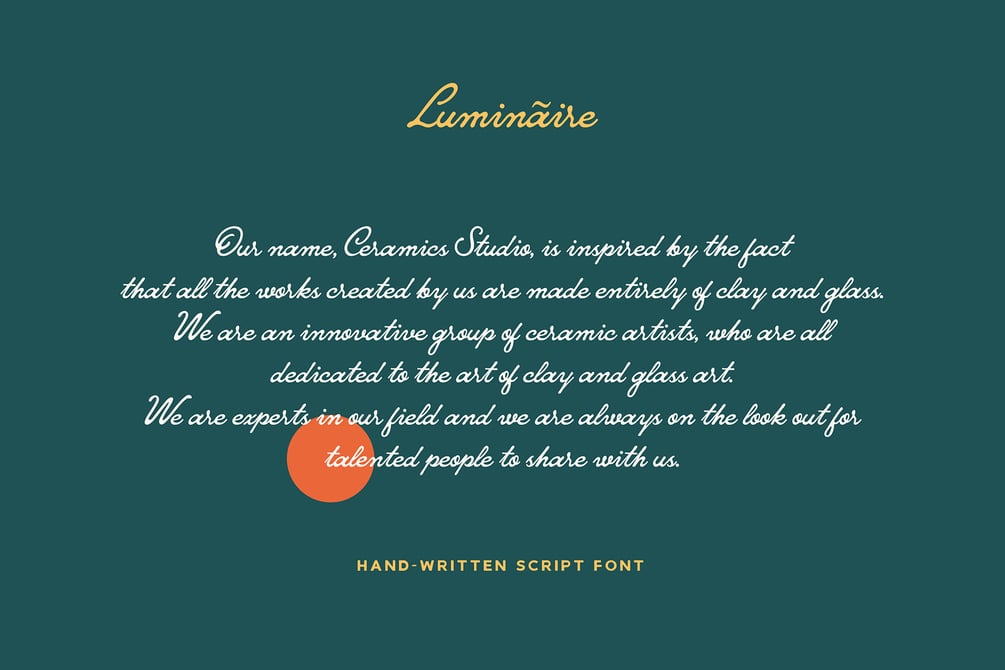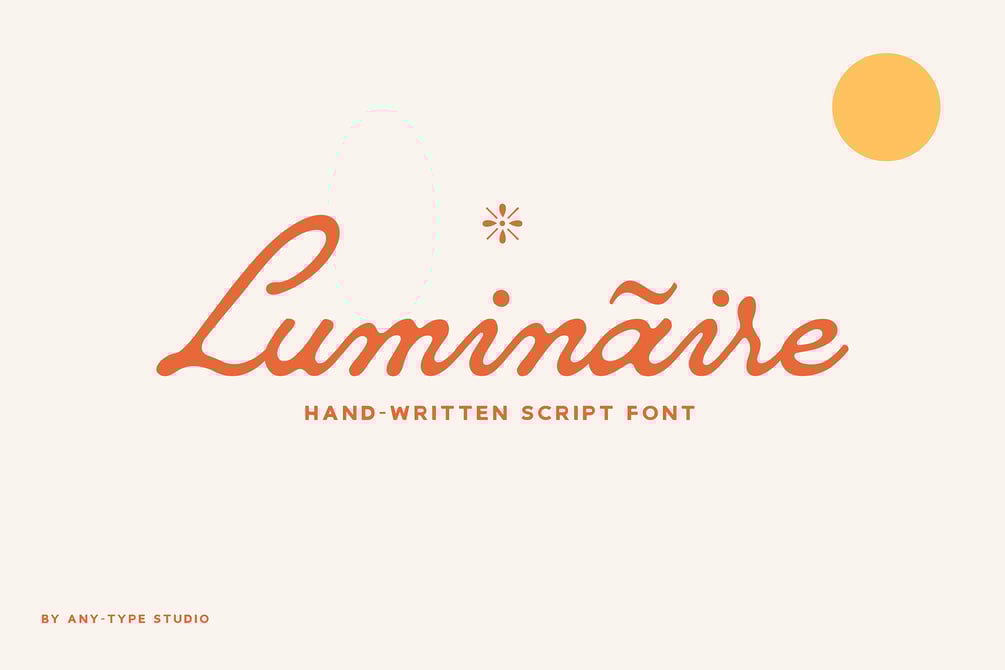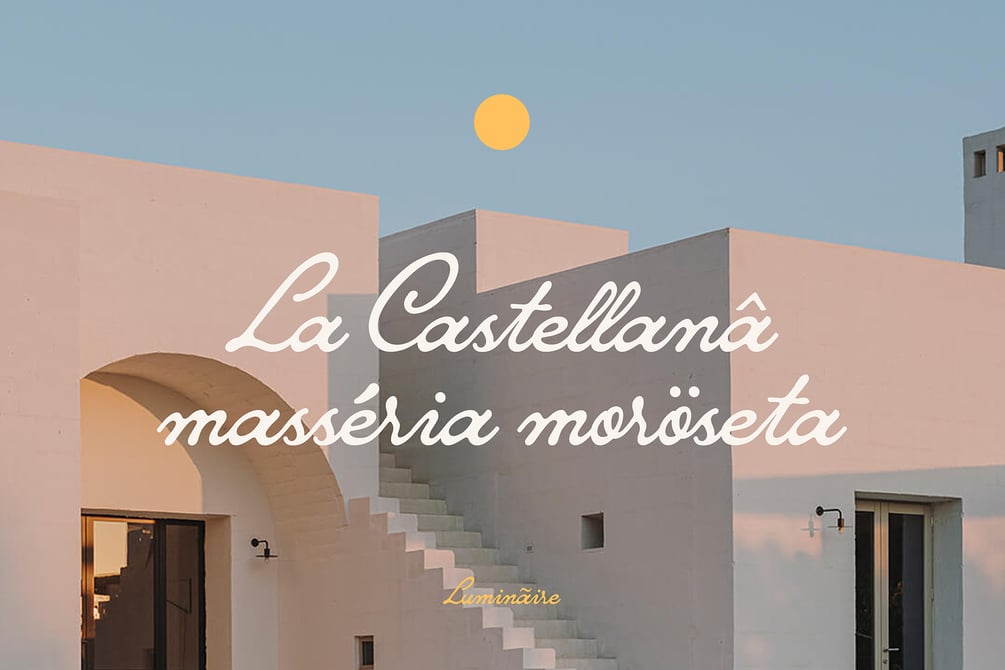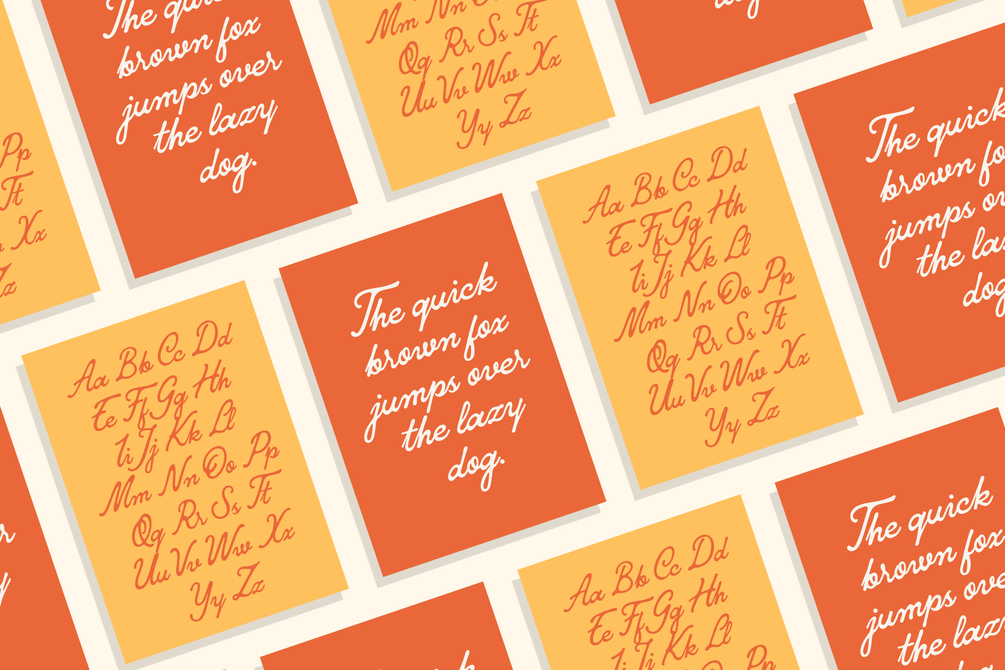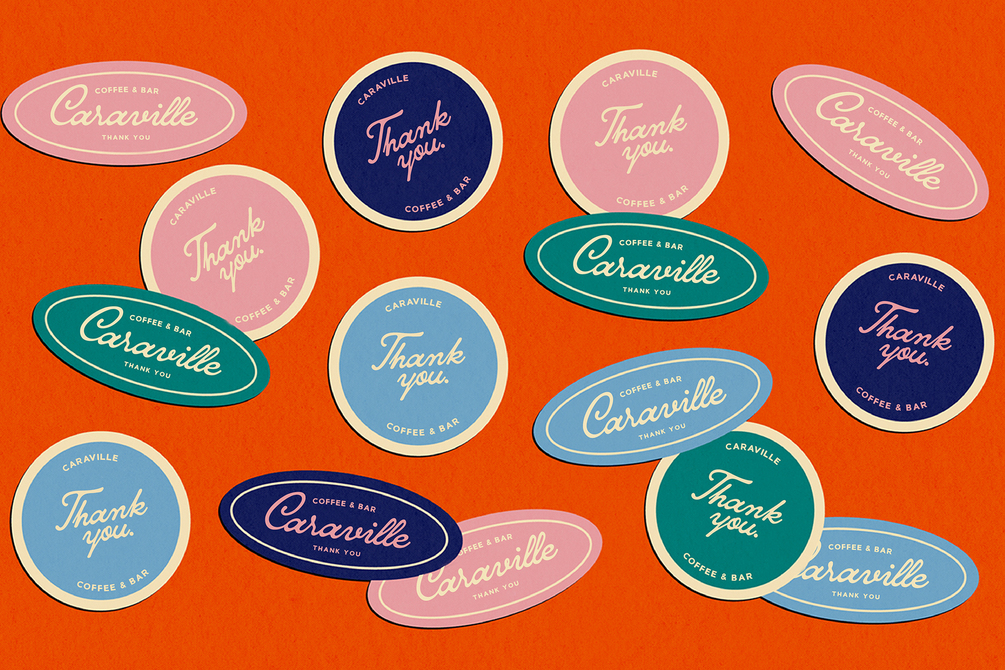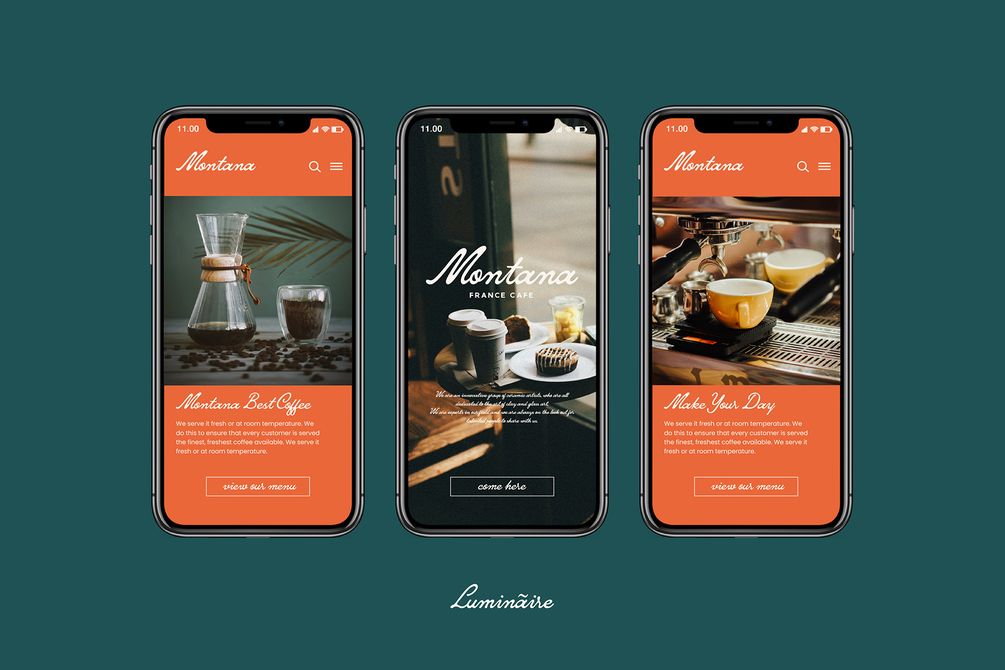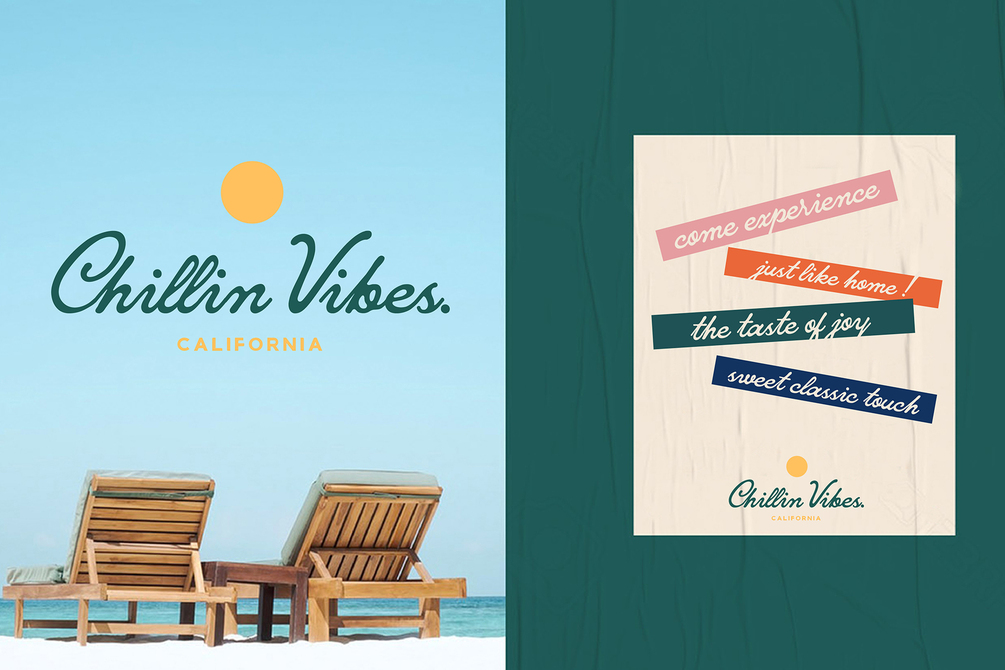
Luminaire Script
Luminaire Script is a casual script font inspired by hand written, pop cultures and urban culture. This font is great for your next creative project such as Logotype, printed quotes, invitations, cards, product packaging, headers, Letterhead, Poster, Apparel Design, Label, and etc.